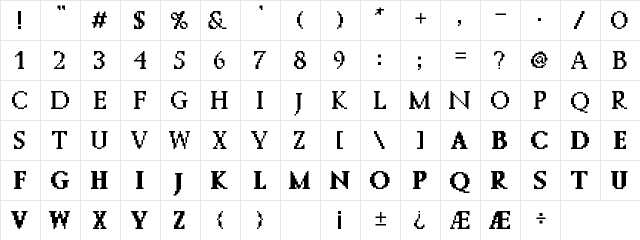
Vastantonius Medium
Design Context for Vastantonius Typeface
Vastantonius is a composed and adaptable typeface that performs quietly and consistently across a wide range of design contexts.
Pro Tip: Use Vastantonius in both headline and body roles to test its range before committing to a single application.